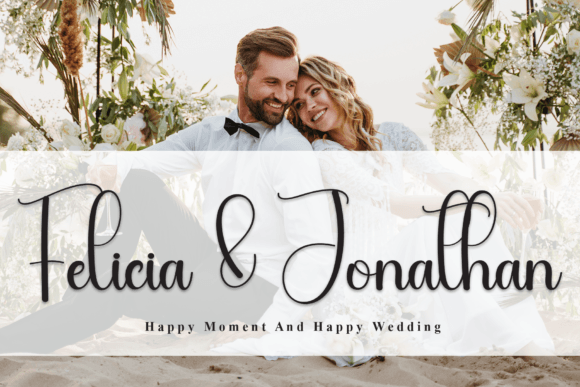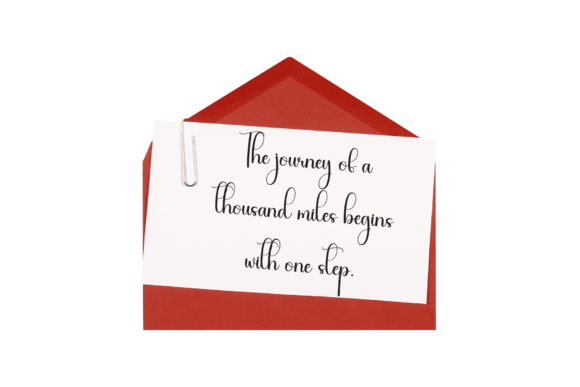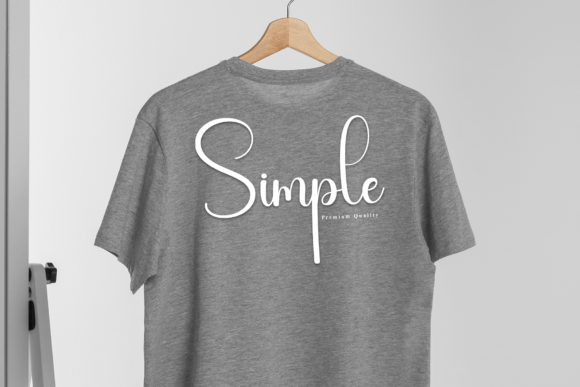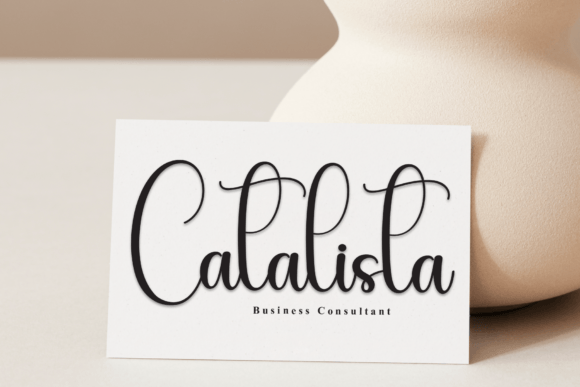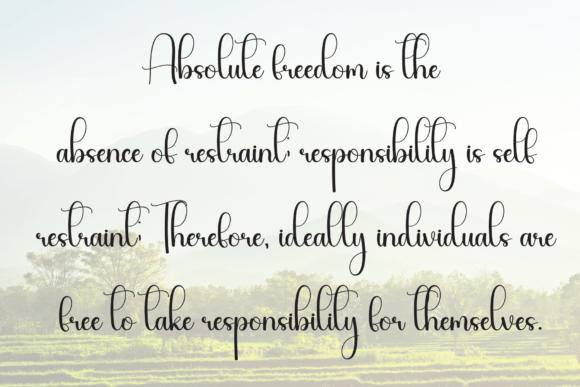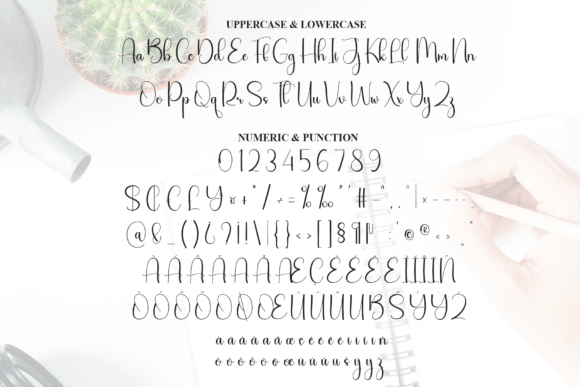
The Quest for the Perfect Handwritten Font: Discovering Angelina Signature
I’ll never forget the time I was working on a branding project for a boutique client, and I was struggling to find the perfect handwritten font. The client wanted something that exuded elegance and sophistication, but still felt personal and approachable. I scoured the internet, tried out countless fonts, but nothing seemed quite right. That was until I stumbled upon Angelina Signature – a stylish handwritten font that instantly captured the essence of my client’s brand.
A Personal Review of Angelina Signature
As a designer, I’m always on the lookout for fonts that can elevate my projects and make them stand out. Angelina Signature is one such font that has become a staple in my design toolkit. Here’s what I love about it:
- ✨ Smooth, flowing letters that give a touch of sophistication to any design
- ✅ Elegant and personal feel that’s perfect for branding, packaging, and marketing materials
- 🌈 Versatile and works well with a variety of design styles, from modern to vintage
Of course, no font is perfect, and Angelina Signature has a few quirks:
- 🤔 Limited multilingual support – while it covers the basic Latin characters, it may not be the best choice for projects that require extensive language support
- ⚠️ Some glyphs may not work well at small font sizes – but this is a minor issue that can be easily addressed by using the font at larger sizes or optimizing the glyphs for specific use cases
The Story Behind Angelina Signature
Angelina Signature was designed by a team of typographers who wanted to create a font that would capture the essence of handwritten elegance. The font is named after a fictional character who embodies the qualities of sophistication, elegance, and personality. The design team drew inspiration from traditional calligraphy and handwriting techniques to create a font that’s both beautiful and functional.
- Q: What is Angelina Signature?
- A: Angelina Signature is a stylish handwritten font that’s designed to add a touch of elegance and sophistication to your designs.
- Q: Is Angelina Signature suitable for body text?
- A: While Angelina Signature is a beautiful font, it’s best suited for headlines, titles, and short paragraphs. For body text, you may want to choose a font that’s more readable and legible.